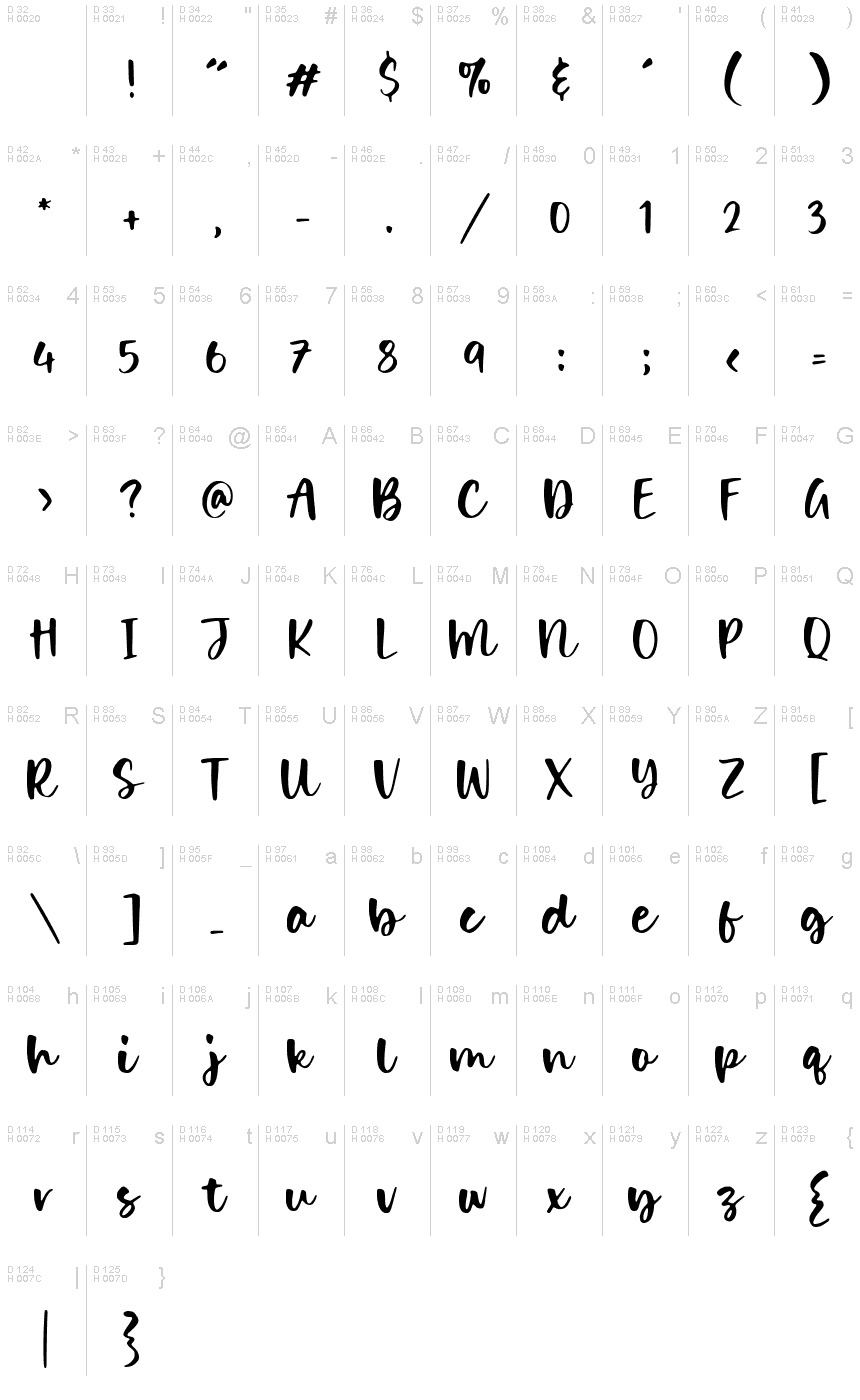
Dolphin Dolls
Dolphin Dolls, a captivating handbrushed font by Balpirick Studio, adds a touch of whimsy to any design project.
This semi-bold typeface exudes playfulness and creativity, making it perfect for children's book covers. Its organic strokes and unique character shapes make Dolphin Dolls ideal for crafting eye-catching logos that stand out in the crowded marketplace. With its distinct charm, this font lends itself beautifully to greeting cards and wedding invitations, infusing them with a delightful personal touch.
Let Dolphin Dolls bring your designs to life with its irresistible charm and artistic flair.